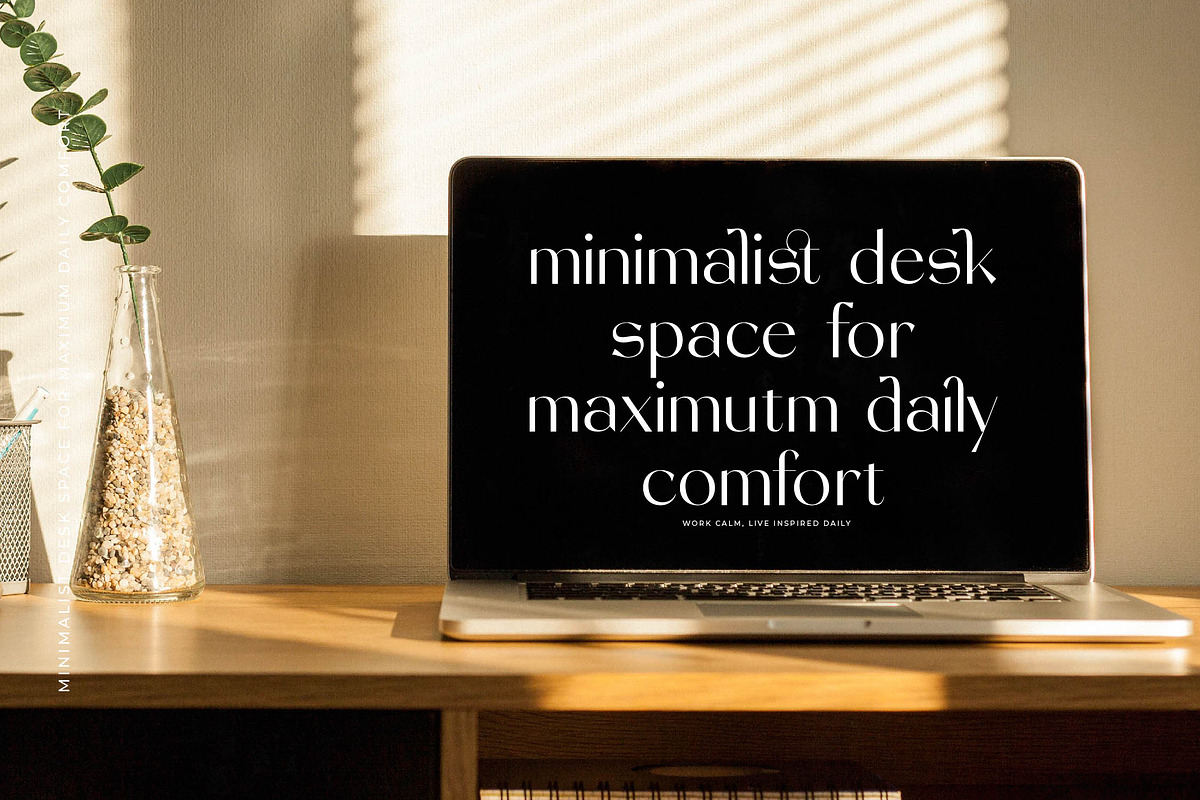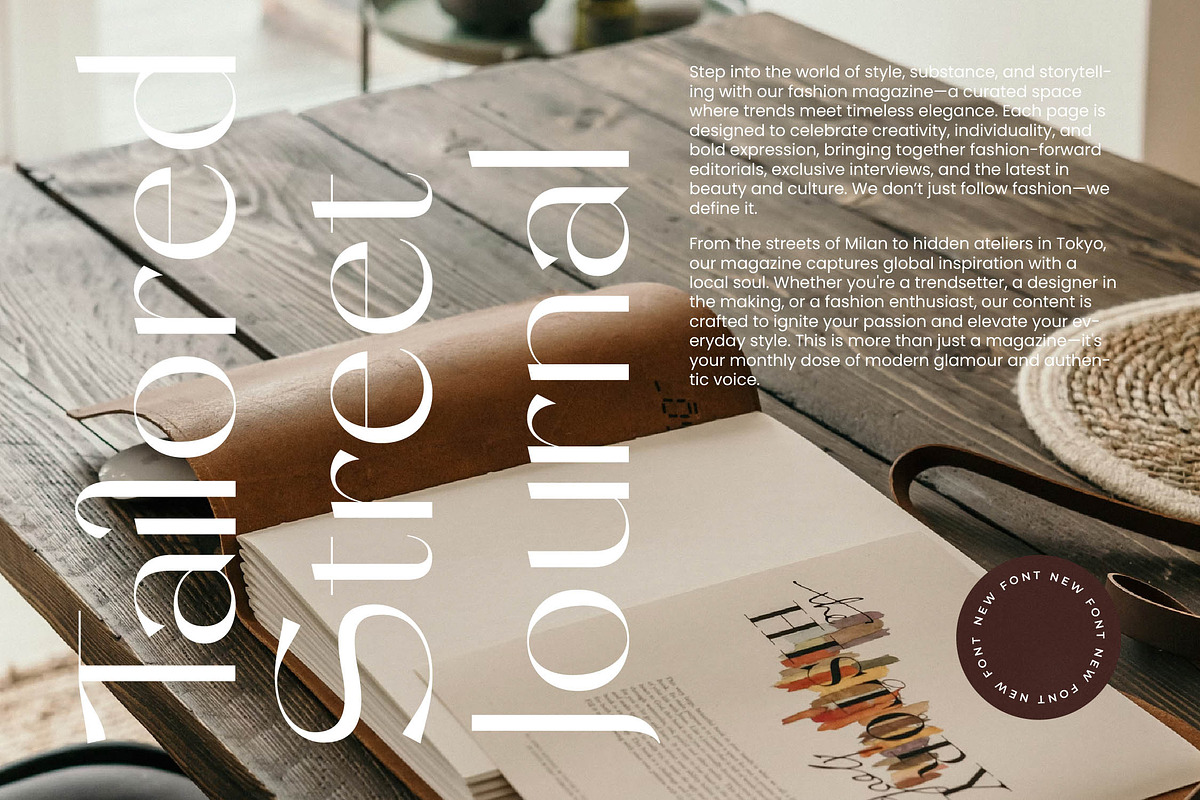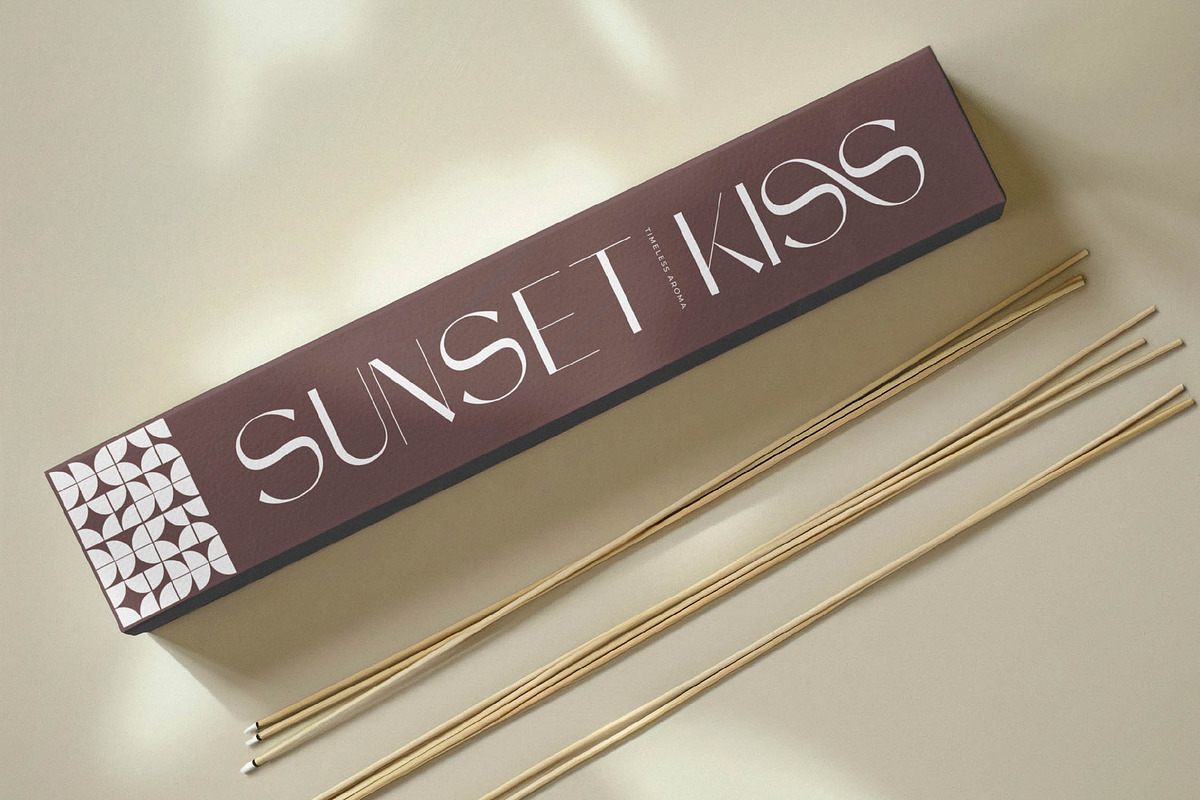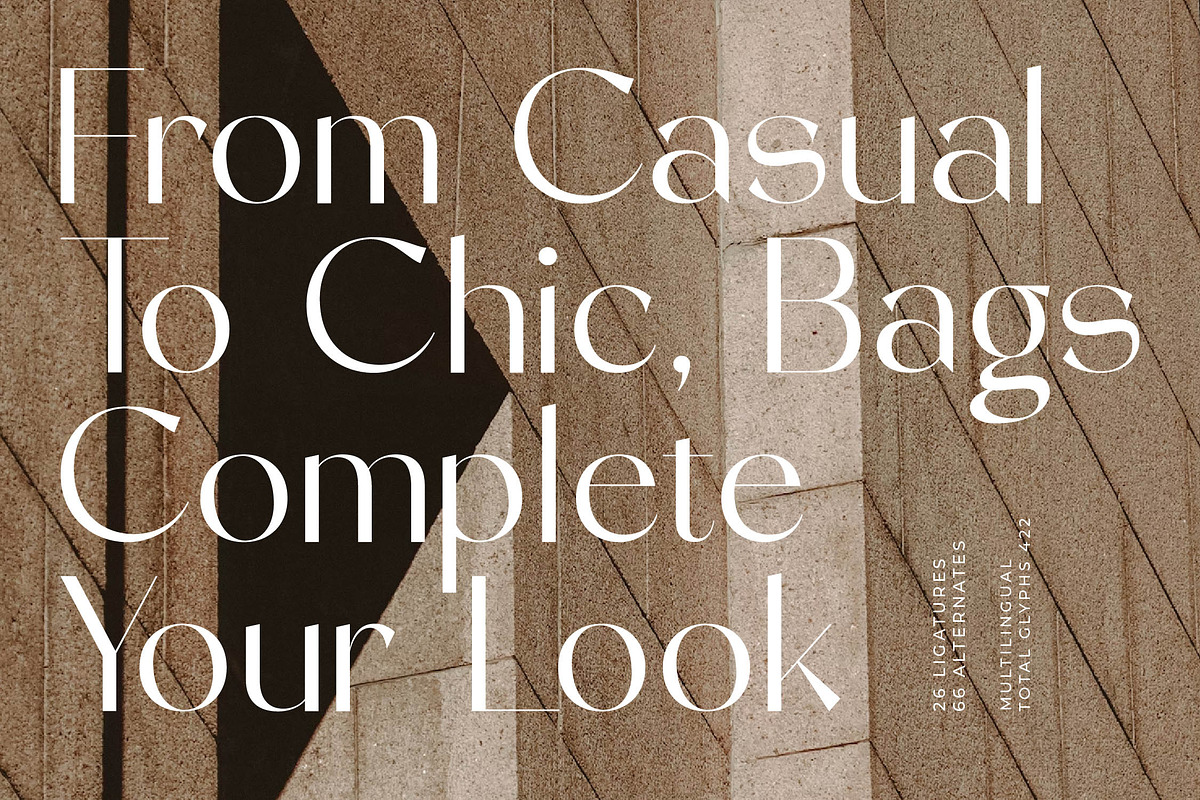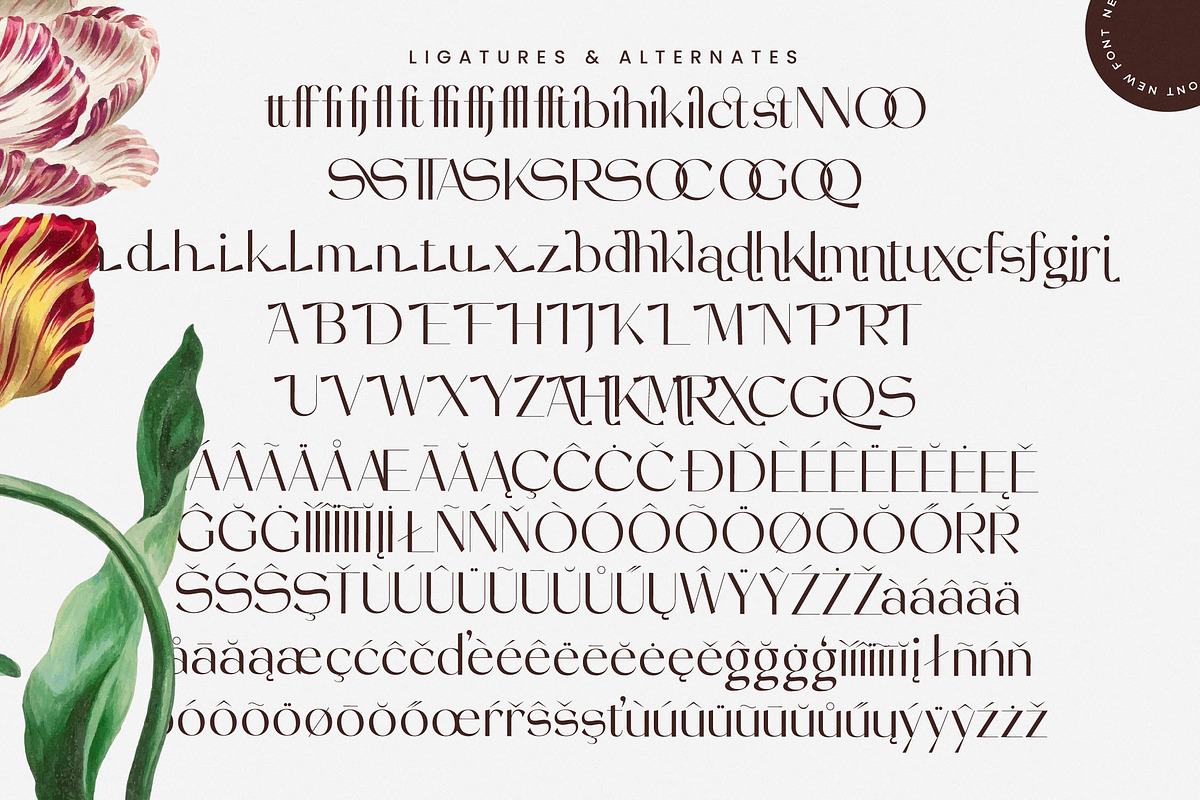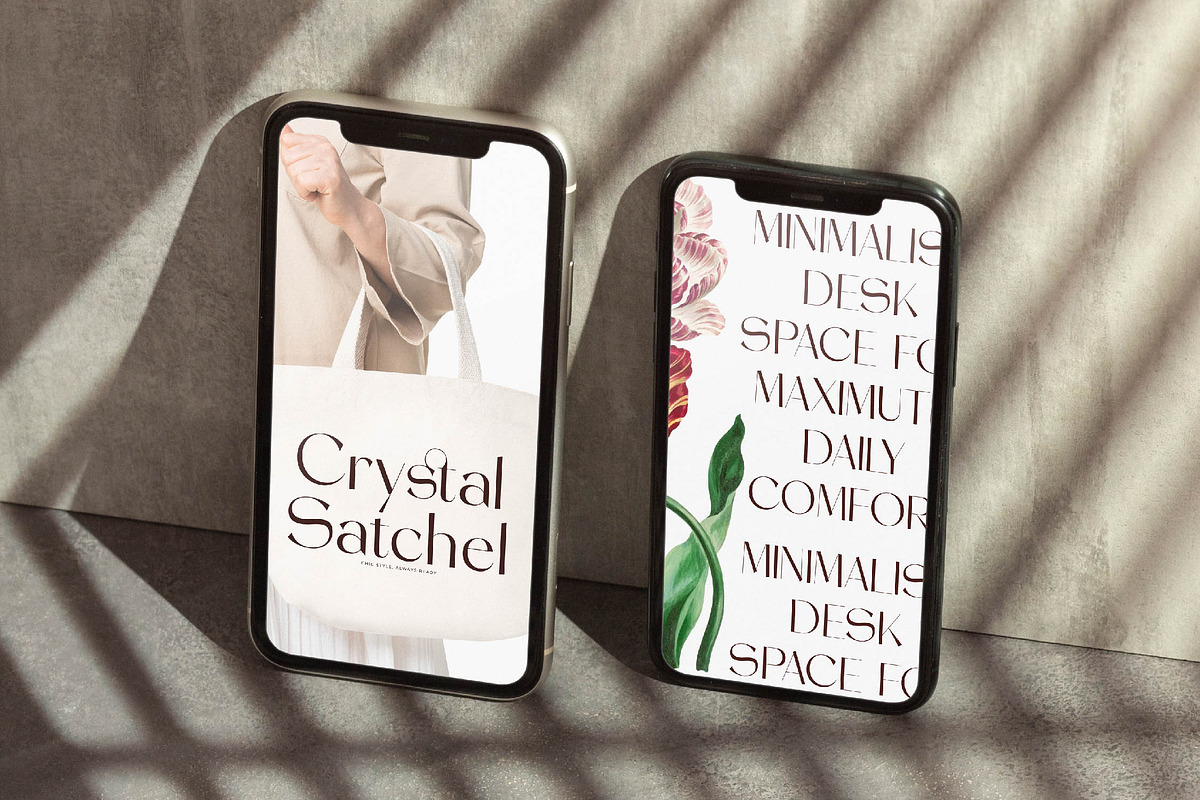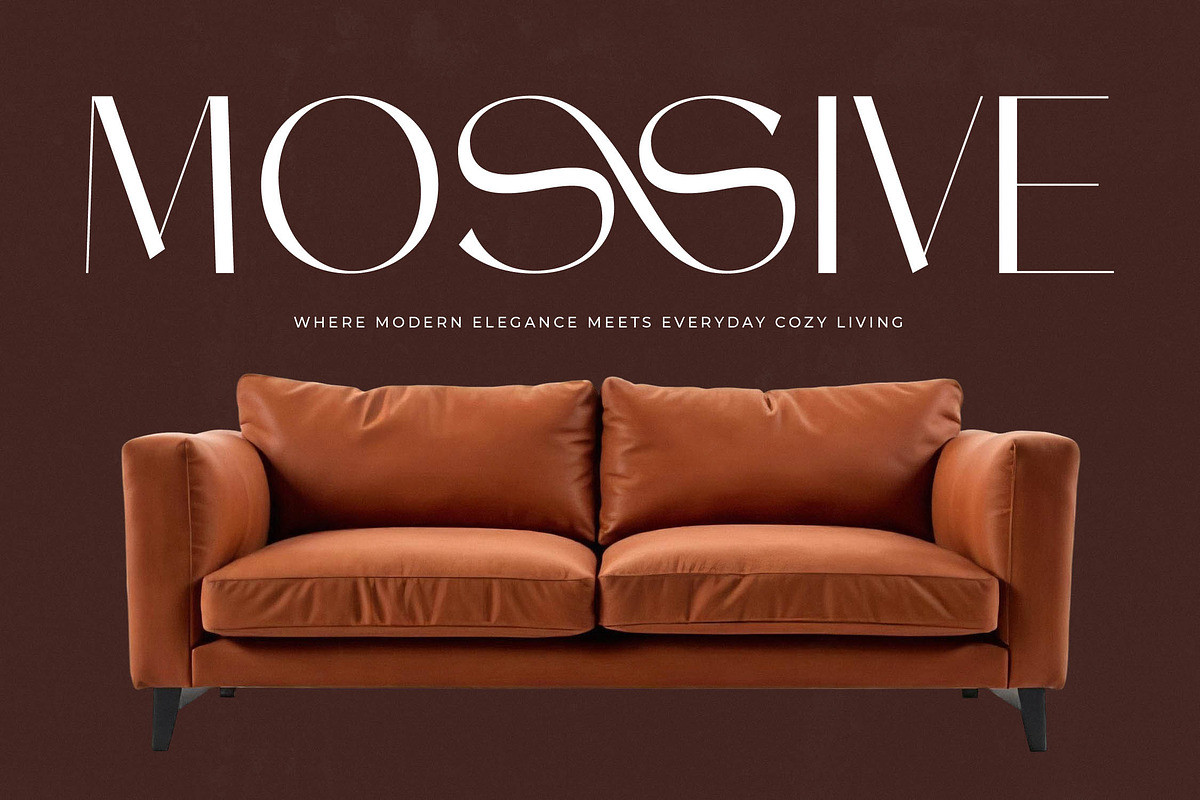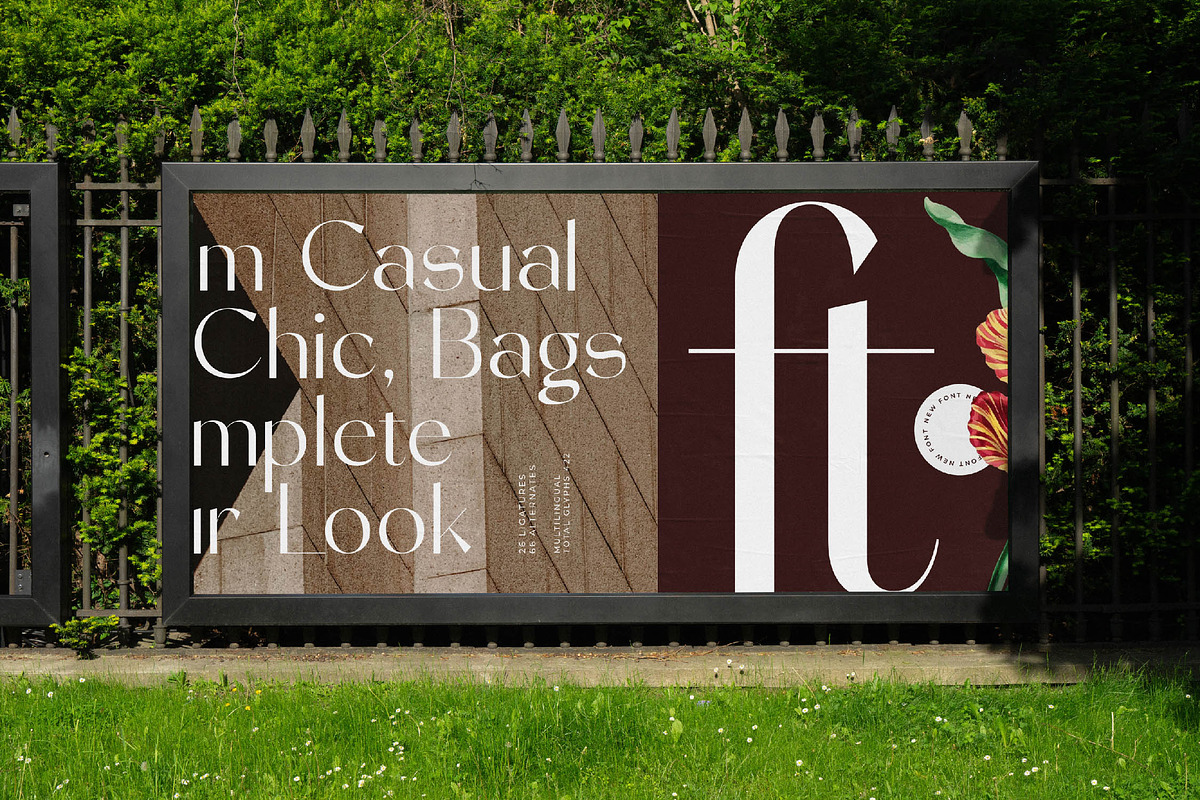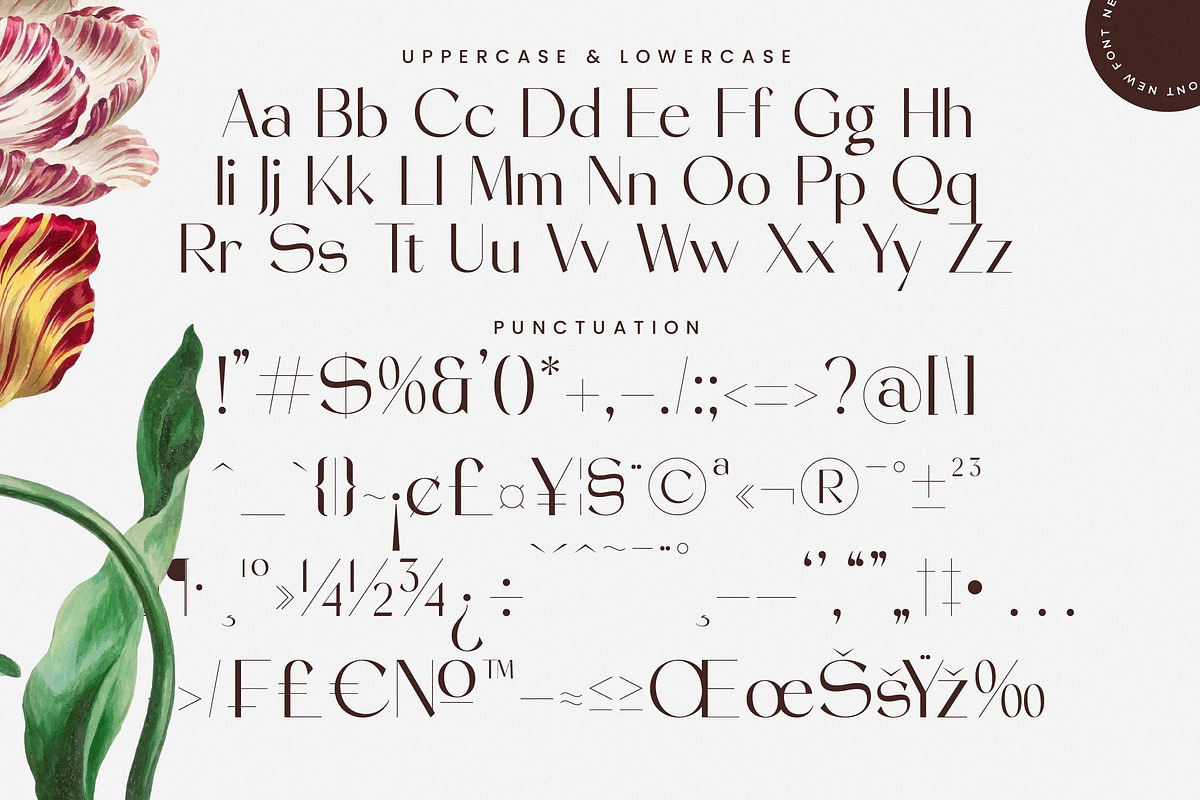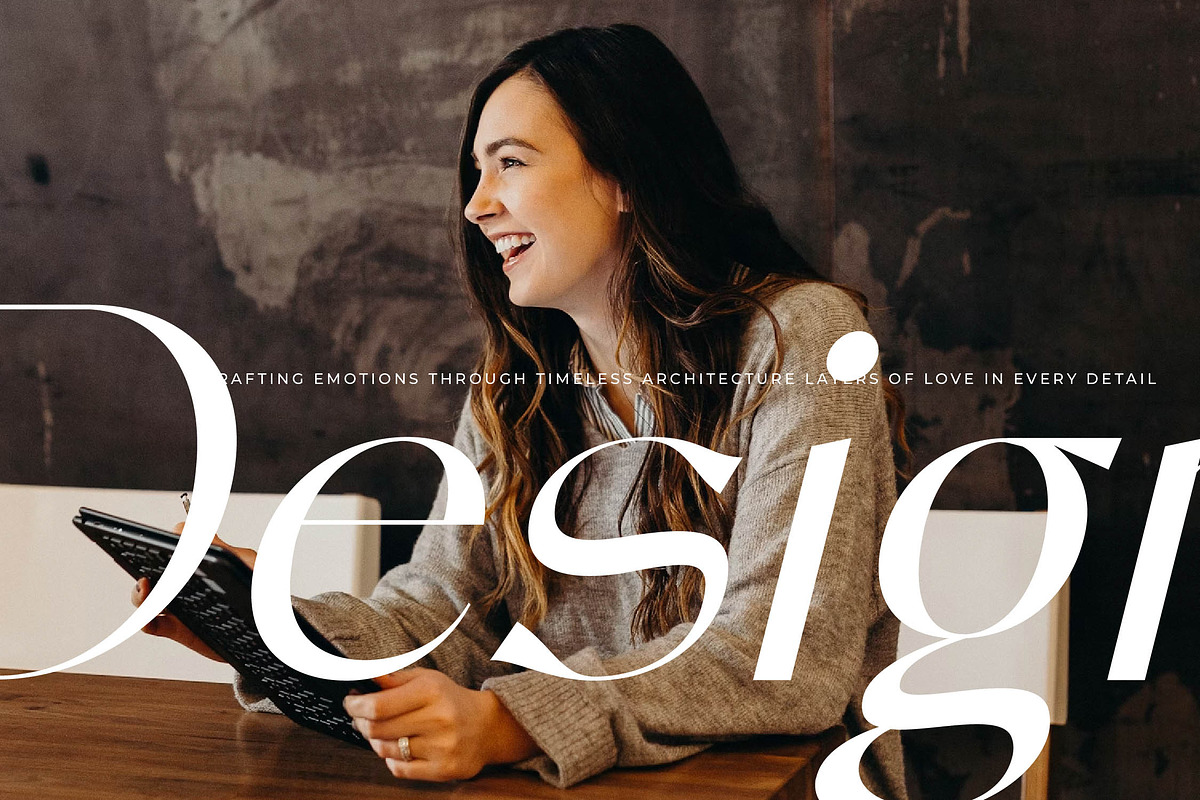
Stogne Gesture Modern Luxury Font
Stogne Gesture is an exquisite display of refined elegance, capturing the essence of high-fashion sophistication in every stroke. This font commands attention with its graceful balance and timeless allure, making it a definitive choice for creators seeking luxury.
Drawing inspiration from the delicate interplay of botanical curves and mid-century editorial layouts, the design reflects a bridge between nature and artifice. It evokes the atmosphere of a high-end boutique or a vintage botanical illustration, where organic forms meet rigid structure.
This modern serif display exudes a sense of luxury typography through its high-contrast serif strokes and refined silhouettes. It is designed as a premier editorial font that prioritizes branding impact, ensuring that every headline feels like a curated piece of art.
Perfectly aligned with the current modern serif trend, this typeface taps into the demand for editorial display fonts that offer more than just legibility. Its character-driven typography allows designers to create unique visual identities that stand out in a saturated digital landscape.
Highly versatile for professional applications, it excels in logo design, high-end branding, and sophisticated editorial layouts. It is also an ideal choice for luxury packaging, romantic wedding stationery, and avant-garde fashion magazines.
The font comes packed with 26 ligatures and 66 alternates alongside decorative swashes that allow for extensive customization and creative flair. With full multilingual support and a wide range of international characters, it ensures your message resonates across global markets without technical limits.
- Ligature 26 Alternate 66